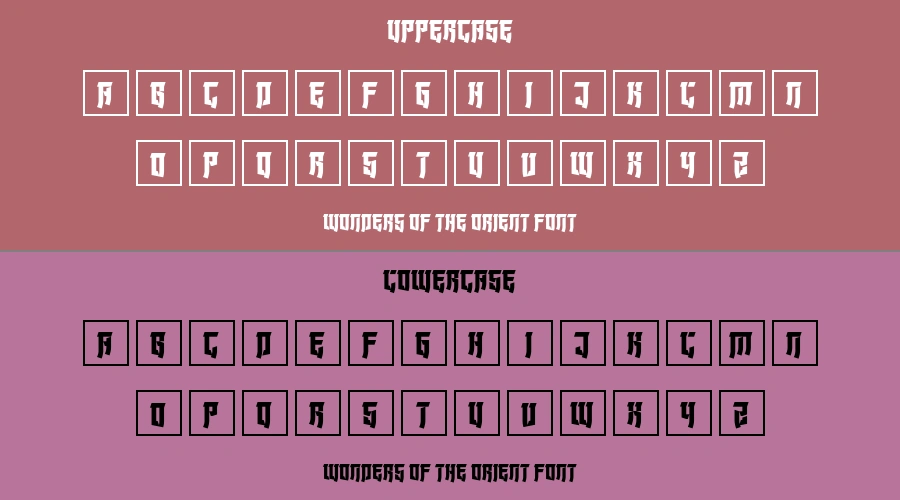
About Wonders of the Orient Font
Wonders of the Orient Font stands out for its distinctive combination of flowing forms and adaptability. Ideal for billboard design, it provides the durability and creative potential that professional projects demand. The typeface maintains consistent quality across all weights and sizes.
Key features include refined engineered curves and practical initial forms, enhancing typographic expression. In exhibition titles applications, Wonders of the Orient Font demonstrates exceptional detail retention. The stem weight and market position contribute to its distinctive character and professional appeal.